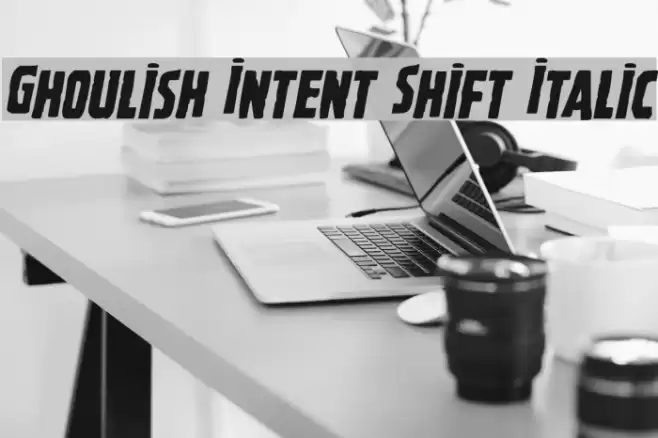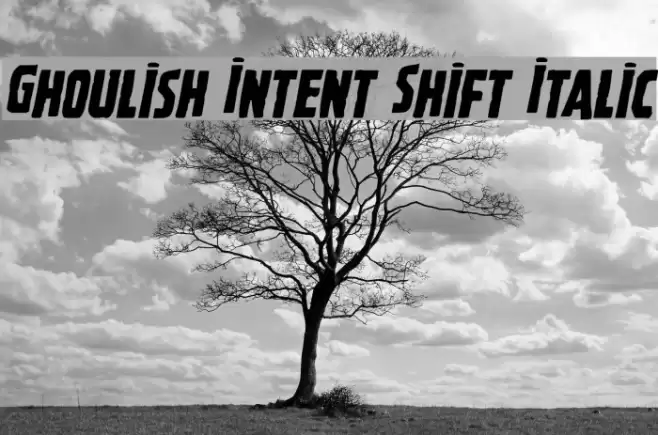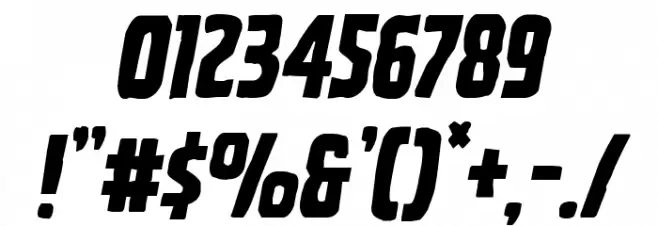
Ghoulish Intent Shift Italic Font
Ghoulish Intent Shift Italic Description
This font features a bold, italicized style with a distinct slant, giving it a dynamic and energetic appearance. The characters are thick and robust, with sharp angles and a slightly condensed form. The uppercase and lowercase letters maintain a consistent style, while the numbers and special characters complement the overall design. The font's boldness and slant make it suitable for attention-grabbing headlines and impactful designs. Its unique style is both modern and slightly edgy, making it ideal for projects that require a strong visual presence.
A bold, italicized font with a dynamic slant and sharp angles from Horror fonts.
- Proposed Projects: Ideal for posters, logos, branding, and any design requiring a bold statement.
- Overall Style: Modern, Edgy